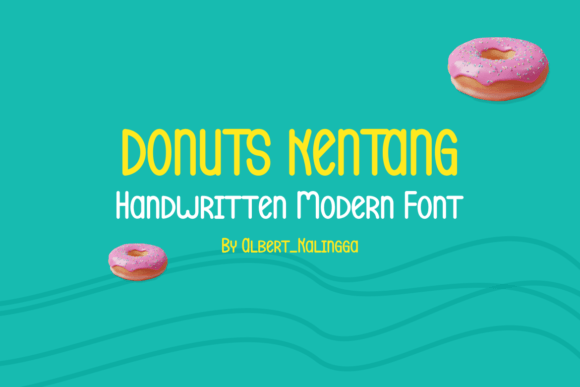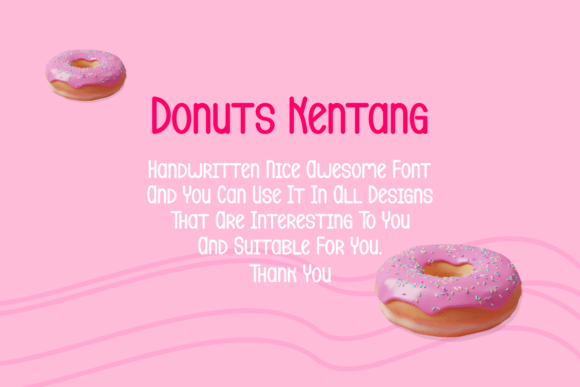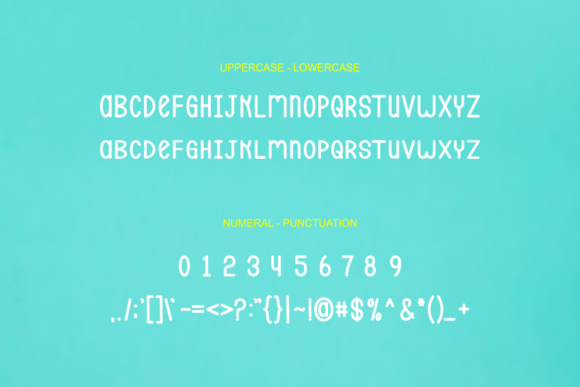
Introduction to Donuts Kentang Font
Donuts Kentang is a sweet and friendly handwritten font.
Key Features of Donuts Kentang Font
Why Choose Donuts Kentang Font?